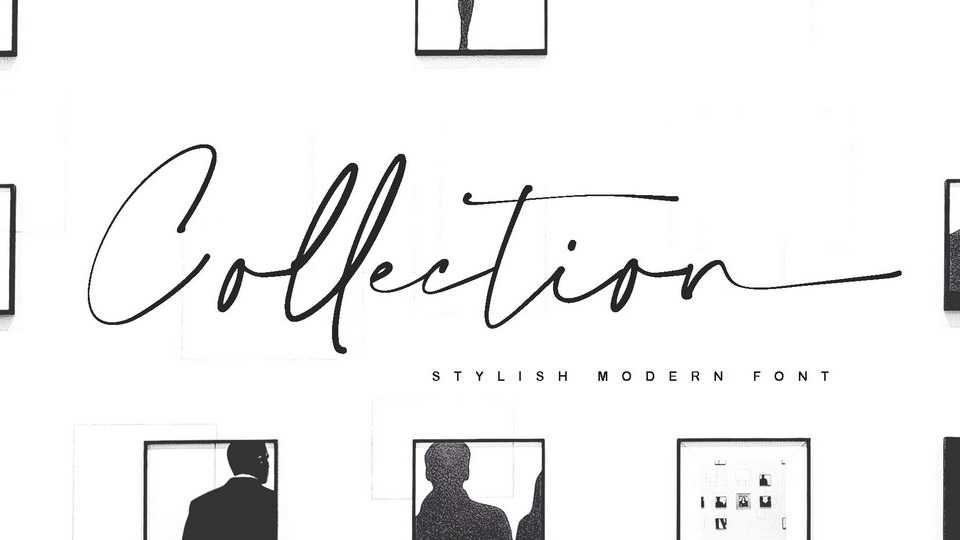
Download Collection font, a handwritten script with a gel pen and natural style. Collection font is great for your next creative projects such as photography watermark, quotes, album cover, logo, business card and many other.
Designer: Agung Rohmat